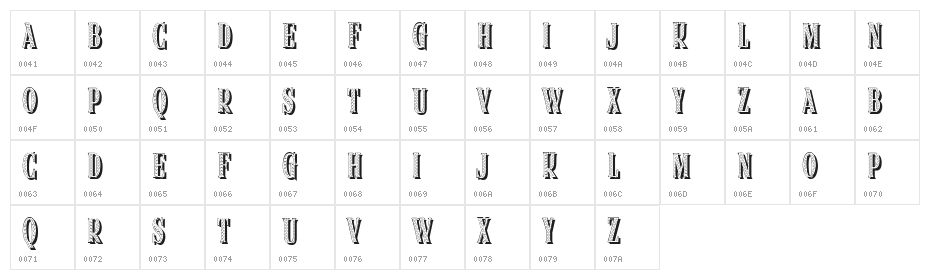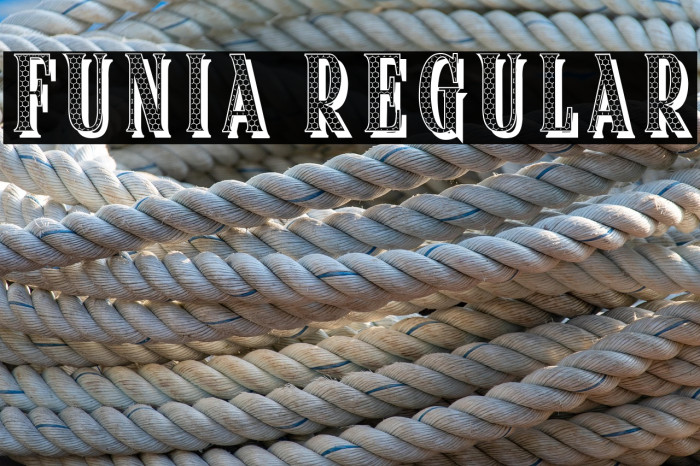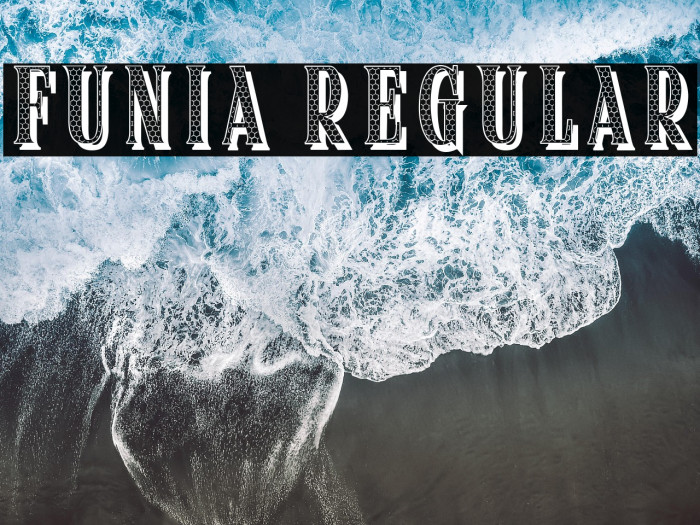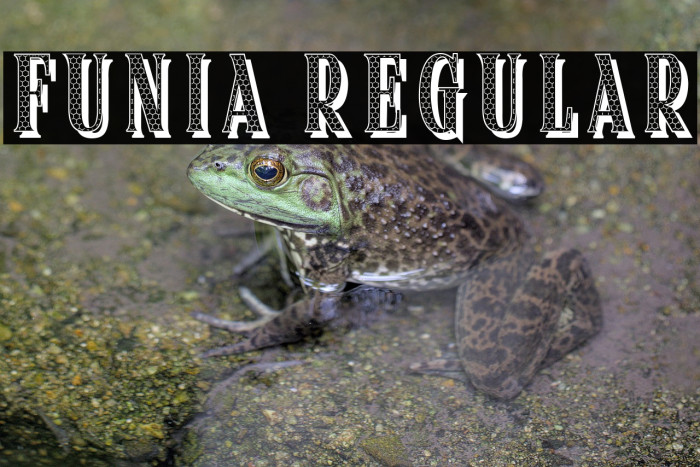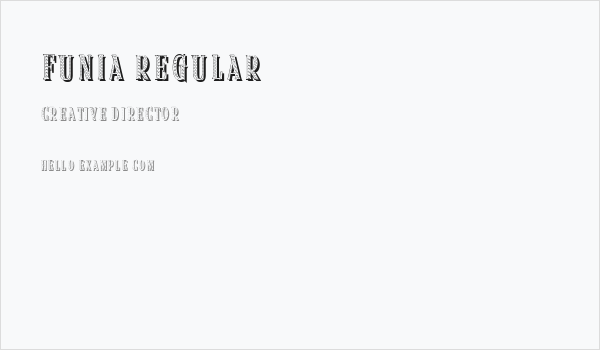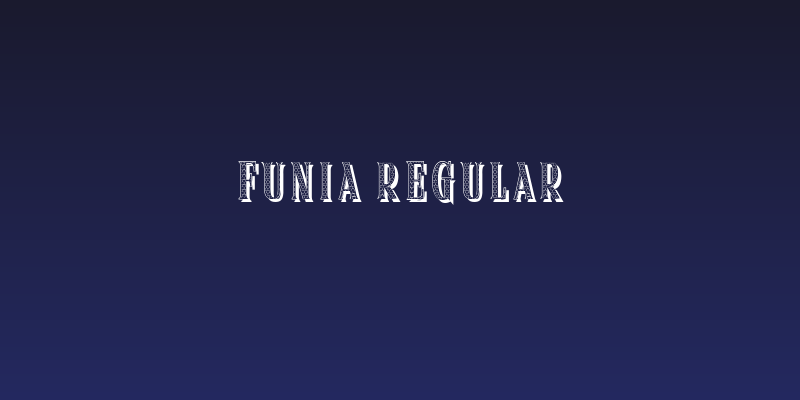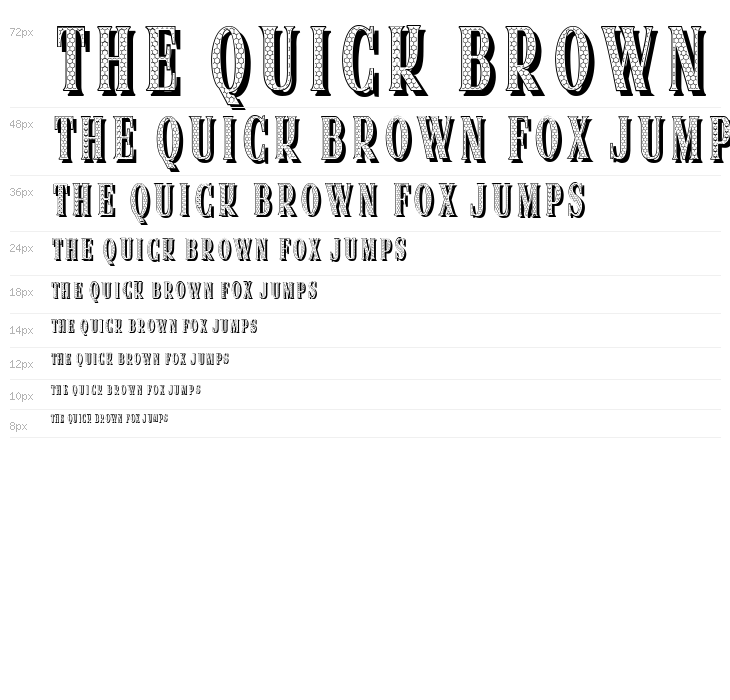
Funia Regular Font
Funia Regular Description
This font features a bold, decorative style with intricate patterns within each letterform. The uppercase letters are designed with a strong, commanding presence, characterized by thick strokes and a shadow effect that adds depth. The interior of each letter is filled with a geometric pattern, enhancing its visual appeal. This font is ideal for creating eye-catching headlines or titles that require a touch of elegance and sophistication. The overall design is reminiscent of vintage signage, making it suitable for projects that aim to capture a classic or retro aesthetic.
| Overall Style | Vintage |
| Proposed Projects | Perfect for vintage-themed posters, branding, book covers, and event invitations. |